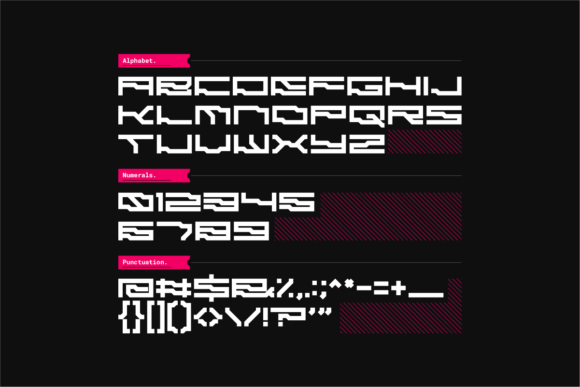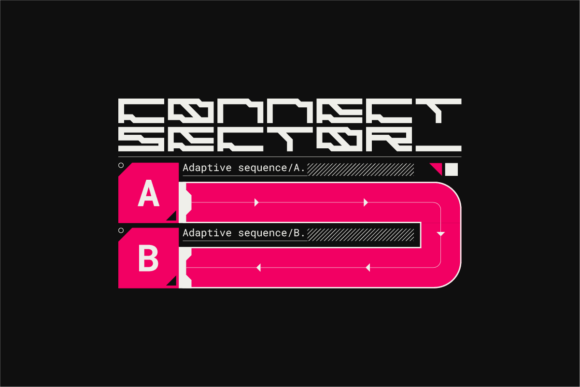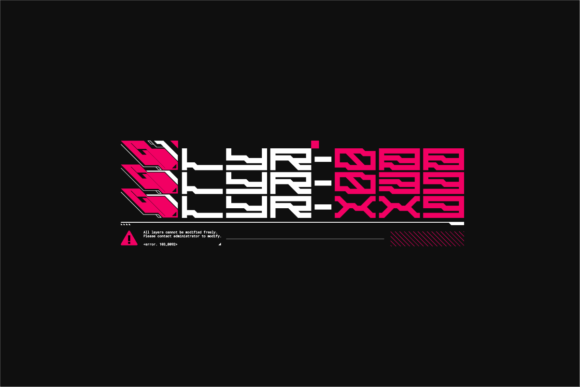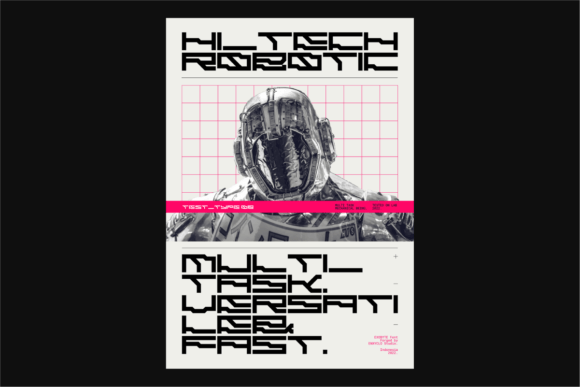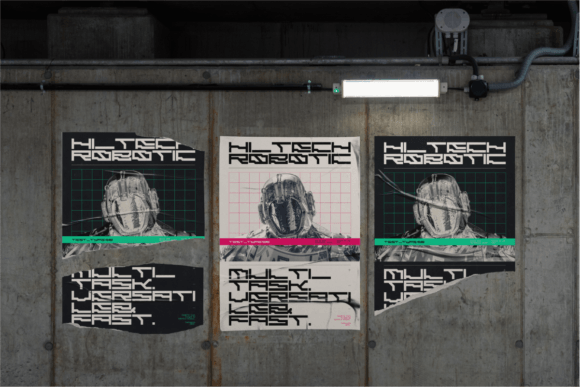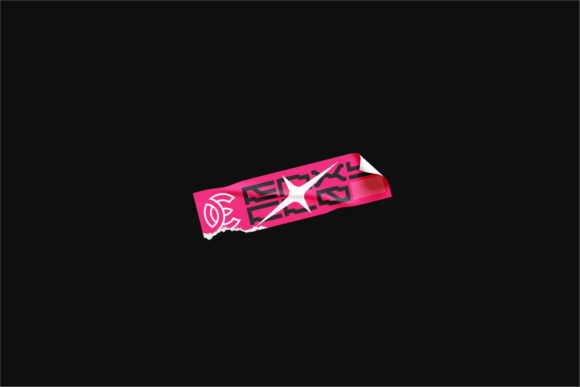
Introducing Exobyte Font: The Ultimate Sci-Fi Display Font
Are you a designer or crafter looking for a font that can add a touch of futurism and sophistication to your designs? Look no further than Exobyte Font. This modern and bold display font is perfect for projects that require a sci-fi edge. In this article, we’ll explore the features and benefits of Exobyte Font, and how it can elevate your designs to the next level.
What is Exobyte Font?
Exobyte Font is a cool and futuristic display font designed to add a touch of modernity and boldness to your designs. Its sleek and edgy lines make it perfect for projects that require a sci-fi touch. Whether you’re working on a logo, poster, or website, Exobyte Font is sure to make a statement.
Key Features of Exobyte Font
- Modern and Bold Design: Exobyte Font features a modern and bold design that is sure to grab attention.
- Sci-Fi Edge: The font’s sleek and edgy lines give it a sci-fi edge that’s perfect for projects that require a futuristic touch.
- Highly Versatile: Exobyte Font is highly versatile and can be used for a wide range of projects, from logos and posters to websites and social media graphics.
- Easily Customizable: The font is easily customizable, allowing you to adjust the size, color, and style to fit your design needs.
Benefits of Using Exobyte Font
So why choose Exobyte Font for your design projects? Here are just a few benefits of using this amazing font:
- Adds a Touch of Futurism: Exobyte Font adds a touch of futurism and sophistication to your designs, making them stand out from the crowd.
- Increases Readability: The font’s bold and modern design makes it highly readable, even at small sizes.
- Perfect for Sci-Fi Projects: Exobyte Font is perfect for sci-fi projects, such as movie posters, video game designs, and futuristic website designs.
How to Use Exobyte Font in Your Designs
Using Exobyte Font in your designs is easy. Here are a few tips to get you started:
- Choose the Right Size: Choose a size that works for your design. Exobyte Font is highly readable at large sizes, but can also be used at smaller sizes for added impact.
- Experiment with Colors: Experiment with different colors to find the perfect match for your design. Exobyte Font looks great in bold and bright colors.
- Pair with Other Fonts: Pair Exobyte Font with other fonts to create a unique and interesting design. Try pairing it with a sans-serif font for added contrast.
In conclusion, Exobyte Font is a cool and futuristic display font that’s perfect for designers and crafters looking to add a touch of sci-fi sophistication to their designs. With its modern and bold design, high versatility, and ease of use, Exobyte Font is sure to become a go-to font for any design project. Try it out today and see the difference it can make!